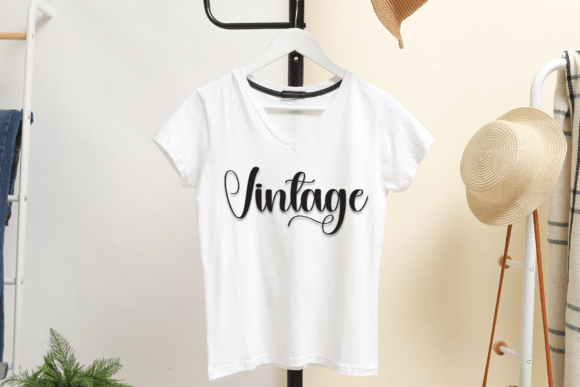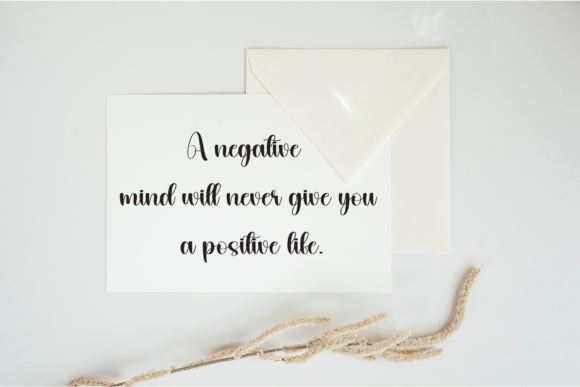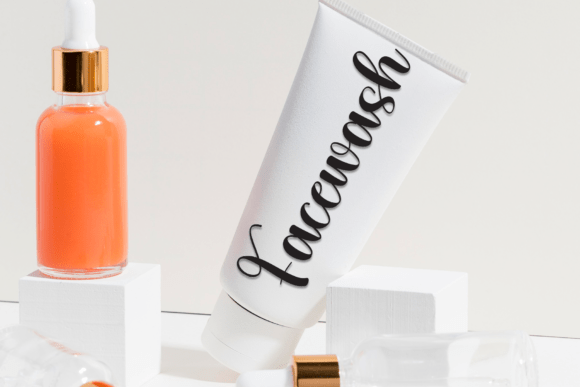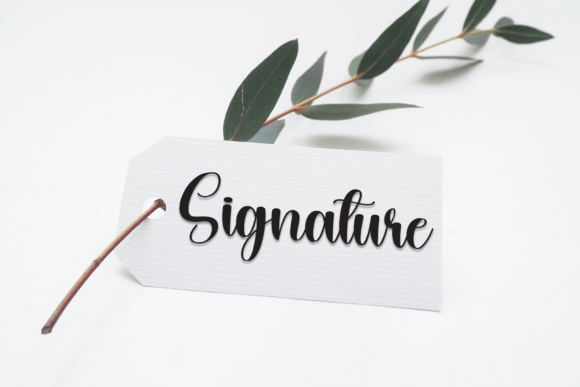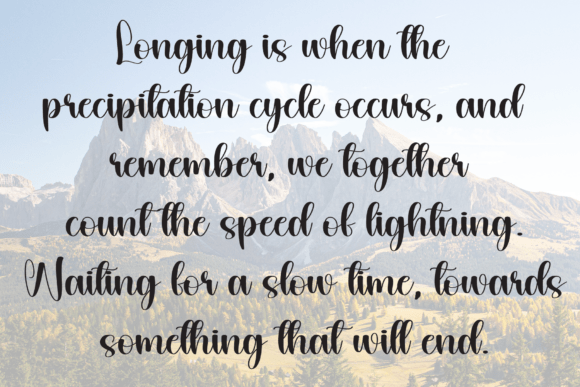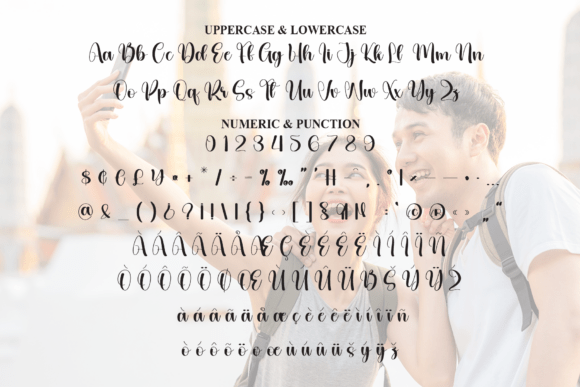
You know that moment when your ideas start flowing and you can’t type them fast enough? The ones where your imagination runs wild, and your creativity knows no bounds? That’s when the perfect font can make all the difference. It’s the spark that brings your vision to life, making it feel personal, expressive, and truly special.
Enter Holiday Font, a beautiful script handwritten font designed to capture the essence of your most creative ideas. With its natural flow and smooth curves, it adds a touch of charm and character to any project, making it perfect for titles, body text, or decorative elements. Whether you’re working on a t-shirt design, magazine cover, or wedding invitation, Holiday Font is the ideal choice for designers looking to add a personal touch to their work.
Holiday Font Key Features
- Font Style: A festive and playful font, perfect for holiday-themed designs.
- Font Size: The font is designed to be highly scalable, making it suitable for use in various font sizes, from 12pt to 48pt.
- Resolution: The font is optimized for high-resolution displays, with clear and crisp characters at resolutions up to 300 DPI.
- Unique Characteristics: The font features intricate and ornate details, including holly leaves, berries, and other festive elements.
Holiday Font Review
As a designer, I was excited to try out the Holiday Font, but my experience was a mixed bag. On the positive side, ✨ the font’s playful and festive vibe is perfect for holiday-themed designs. The curly, swirly details add a touch of whimsy that’s sure to put a smile on users’ faces. ✨ The font’s versatility also makes it suitable for a range of applications, from invitations to social media graphics.
However, I did encounter some limitations that held me back from fully embracing this font. ⚠️ One major issue is its lack of legibility at smaller font sizes. While it looks great at larger sizes, the font can become quite difficult to read when scaled down. ⚠️ Additionally, the font’s complexity can make it challenging to pair with other fonts, which may limit its use in more formal or professional designs.
Overall, I would give the Holiday Font 3.5 out of 5 stars. While it’s a great choice for holiday-themed designs, its limitations hold it back from being a go-to font for everyday use. If you’re looking for a fun, festive font for a specific project, the Holiday Font is worth considering. However, if you need a font that’s versatile and easy to read, you may want to look elsewhere.
- Pros:
- Playful and festive vibe
- Perfect for holiday-themed designs
- Can be used for invitations, social media graphics, and more
- ✨ Versatile and easy to use
- Fun, curly details add a touch of whimsy
- Cons:
- Lack of legibility at smaller font sizes
- Can be challenging to pair with other fonts
- ⚠️ May not be suitable for formal or professional designs
Practical Application Guide for Holiday Font
Getting the Most Out of Holiday Font
To get the most out of Holiday Font, use it in conjunction with festive graphics and colors to create a cohesive holiday design. Experiment with different font sizes and styles to add visual interest to your design.
Holiday Font is commonly used in:
- Christmas and New Year’s Eve invitations and cards.
- Holiday-themed social media posts and graphics.
- Seasonal advertisements and promotional materials.
Alternatives to Holiday Font
Great Vibes is a festive, handwritten font perfect for creating a lively atmosphere in invitations, greeting cards, and social media graphics. It’s ideal for adding a touch of whimsy and playfulness to your designs.
Great Vibes is similar to Holiday Font in its cursive nature, but it has a more relaxed and casual feel. While Holiday Font is more suited for formal events, Great Vibes is better for casual gatherings and celebrations.